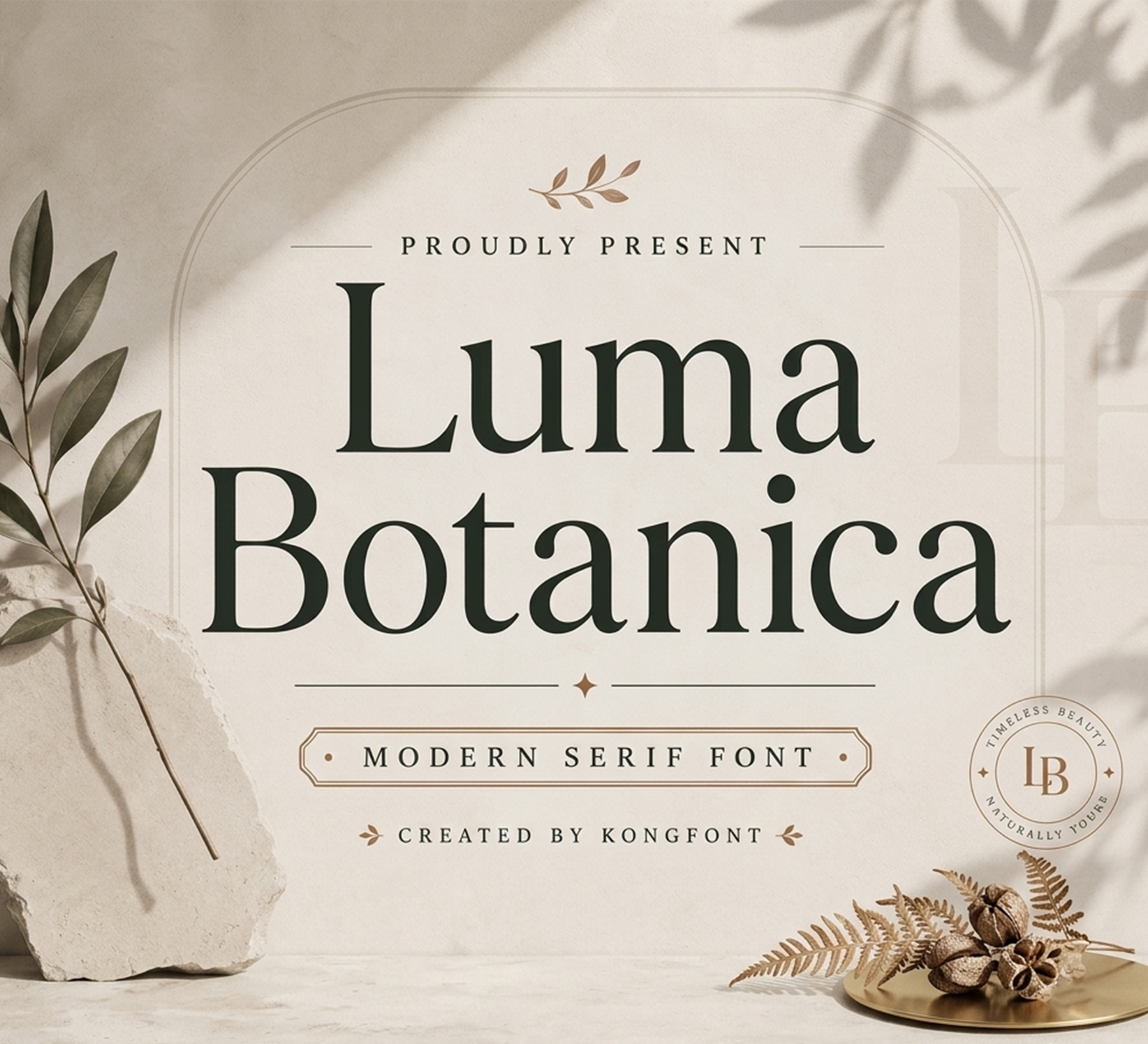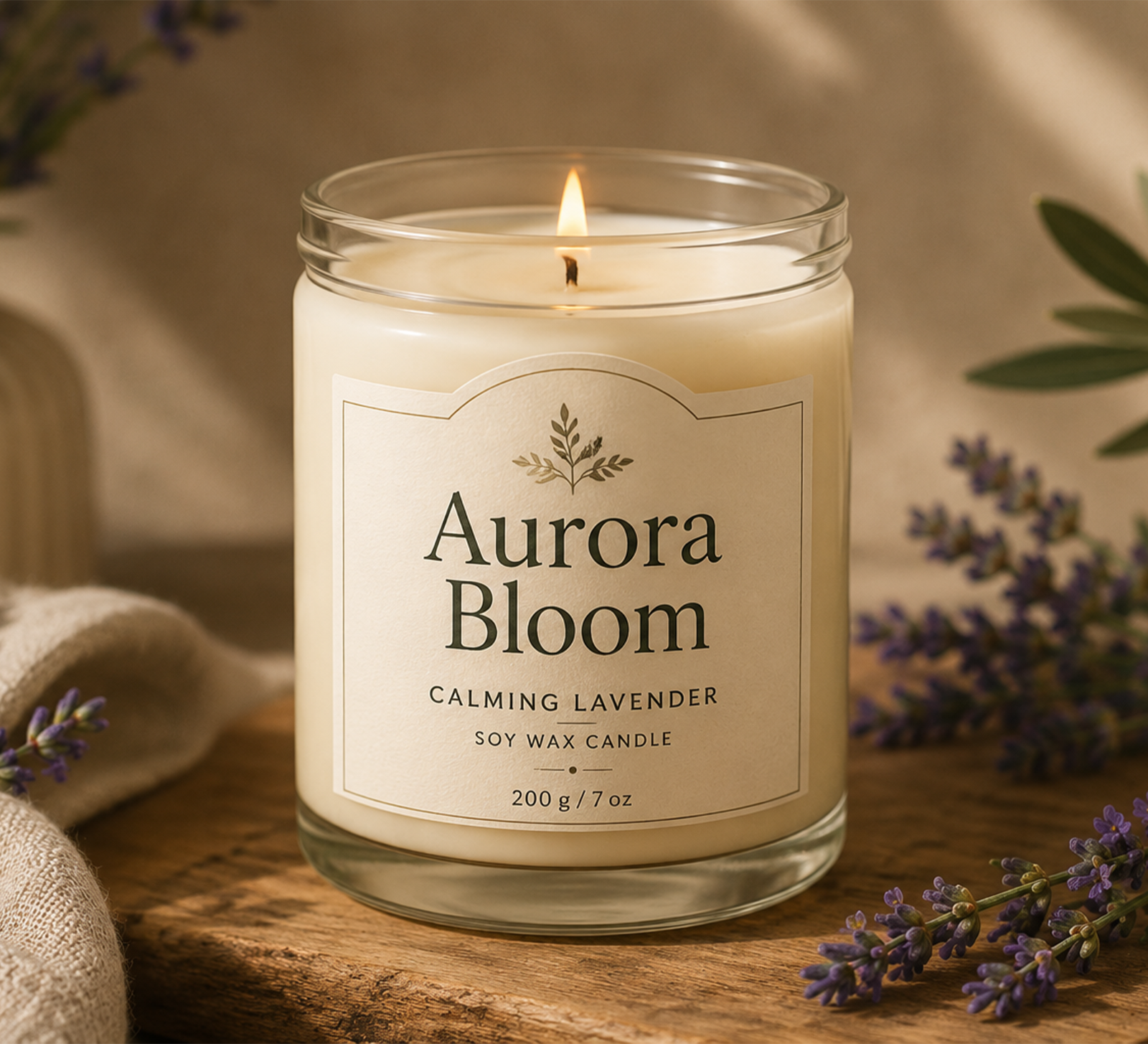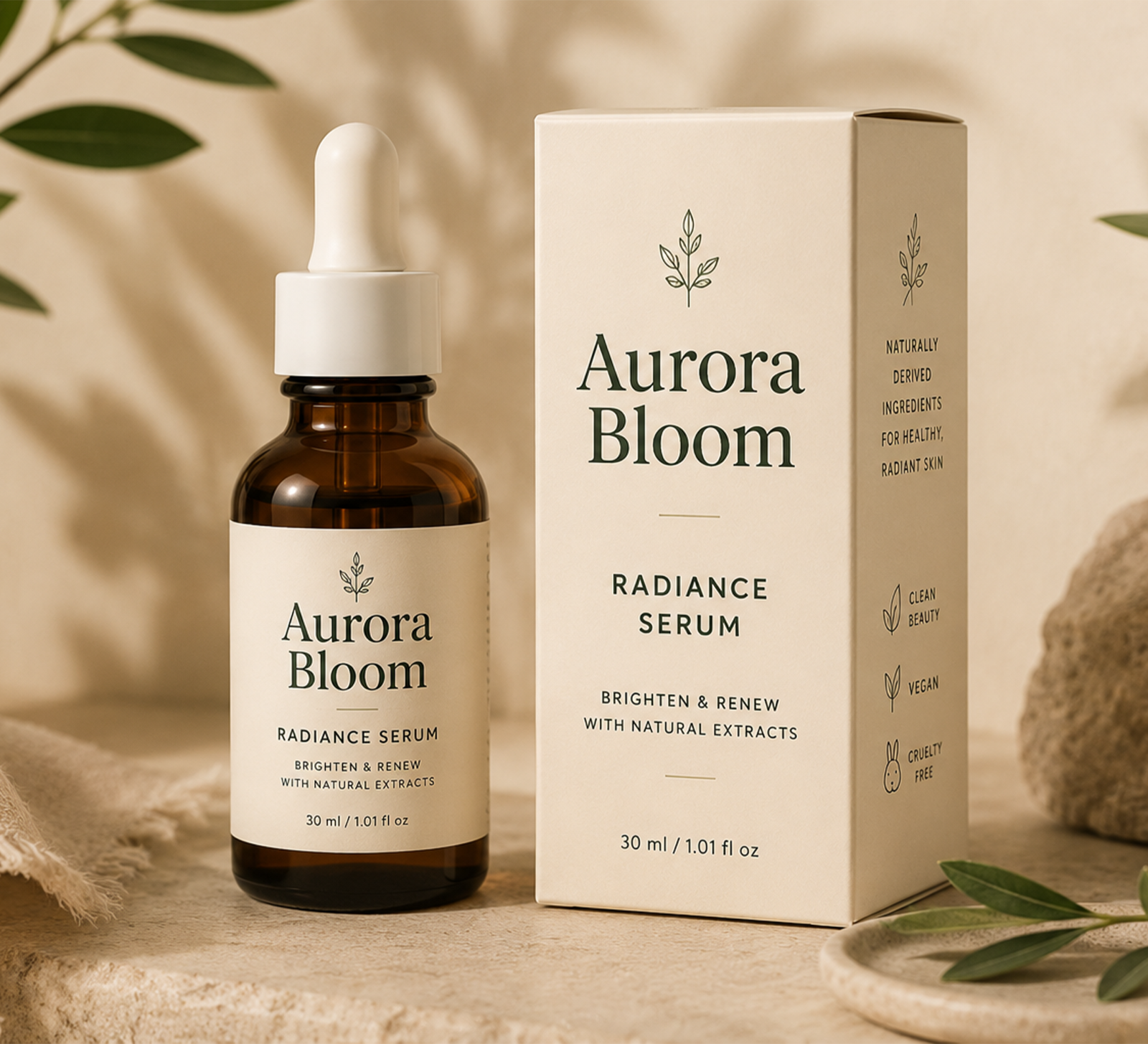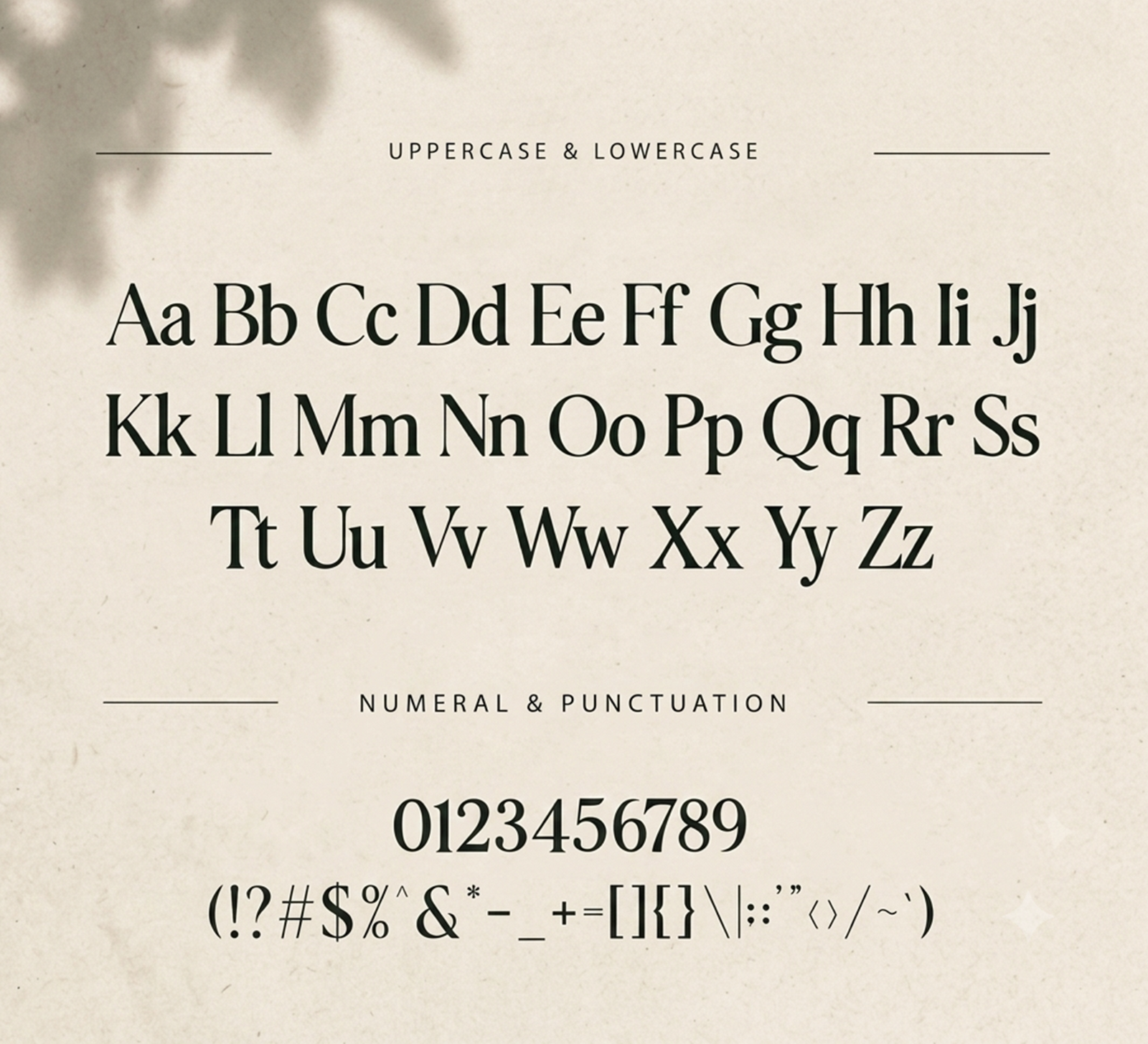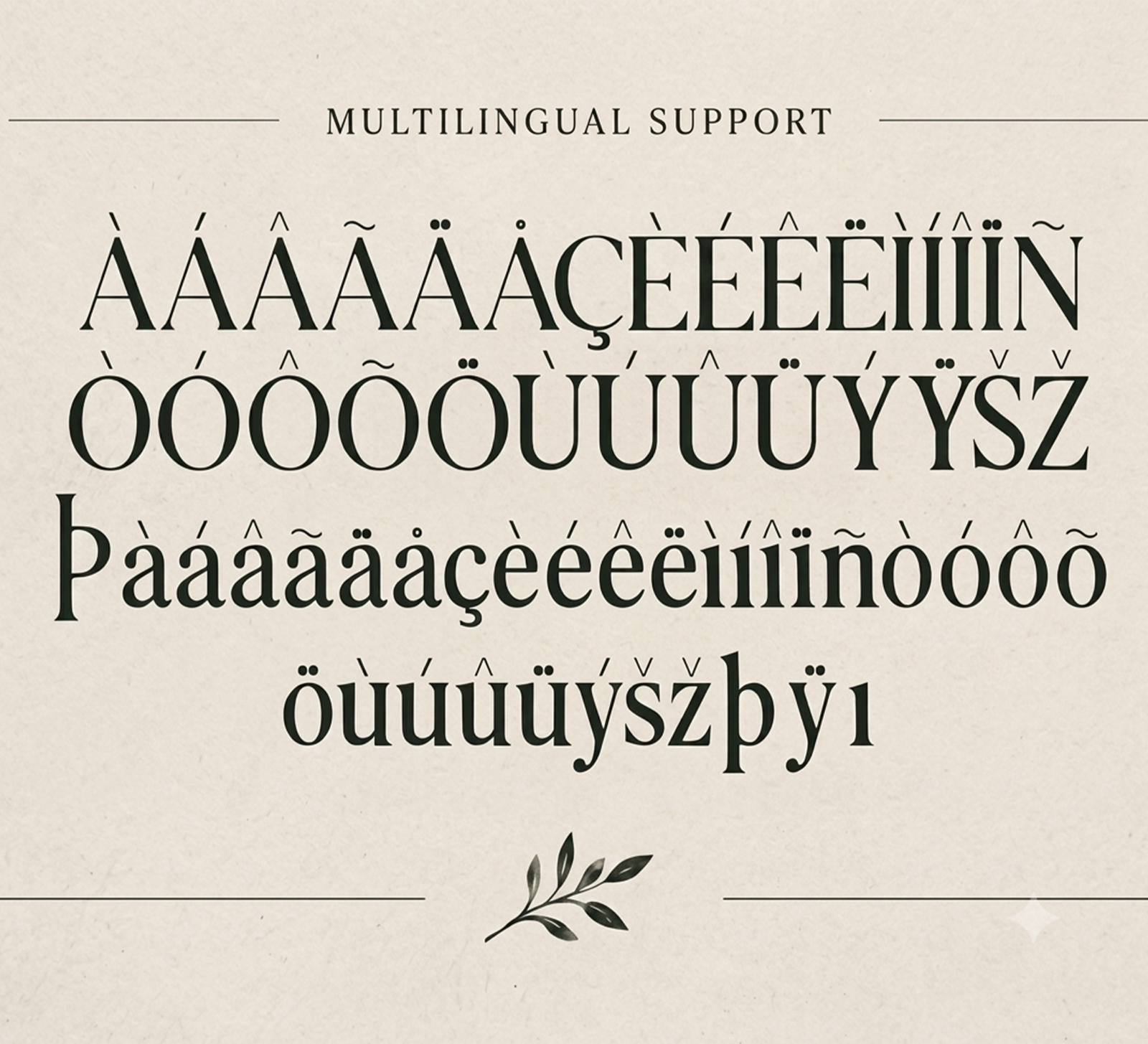
MarketplaceFontsLuma Botanica – Modern Elegant Serif Font
Luma Botanica is a modern serif font with bold letterforms, elegant curves, and a refined contemporary style. Its distinctive shapes create a strong visual presence while keeping the overall look clean, stylish, and sophisticated.
• Branding
• Logos
• Business cards
• Blog headers
• Quotes
• Editorial titles
• Packaging
• Creative typography